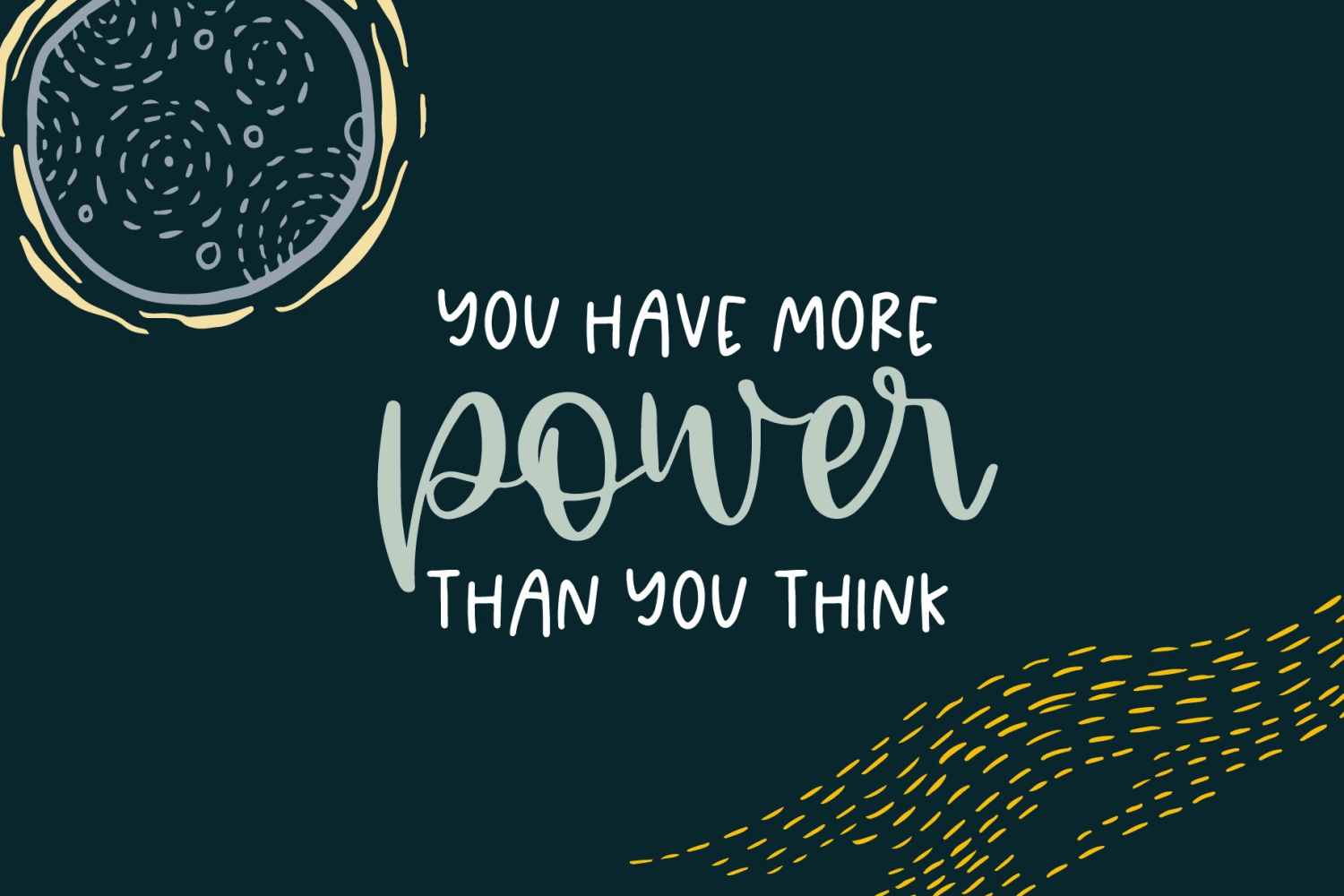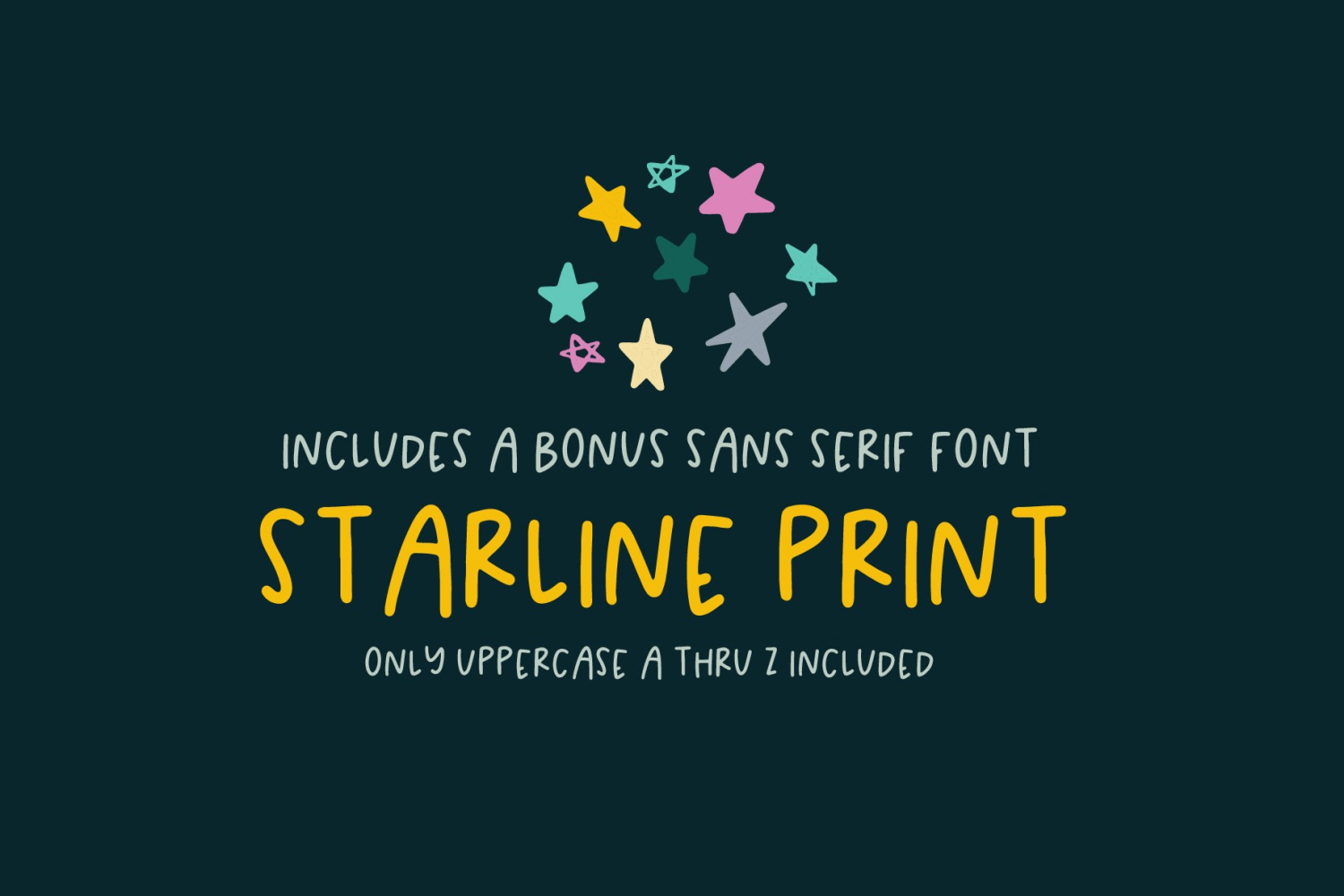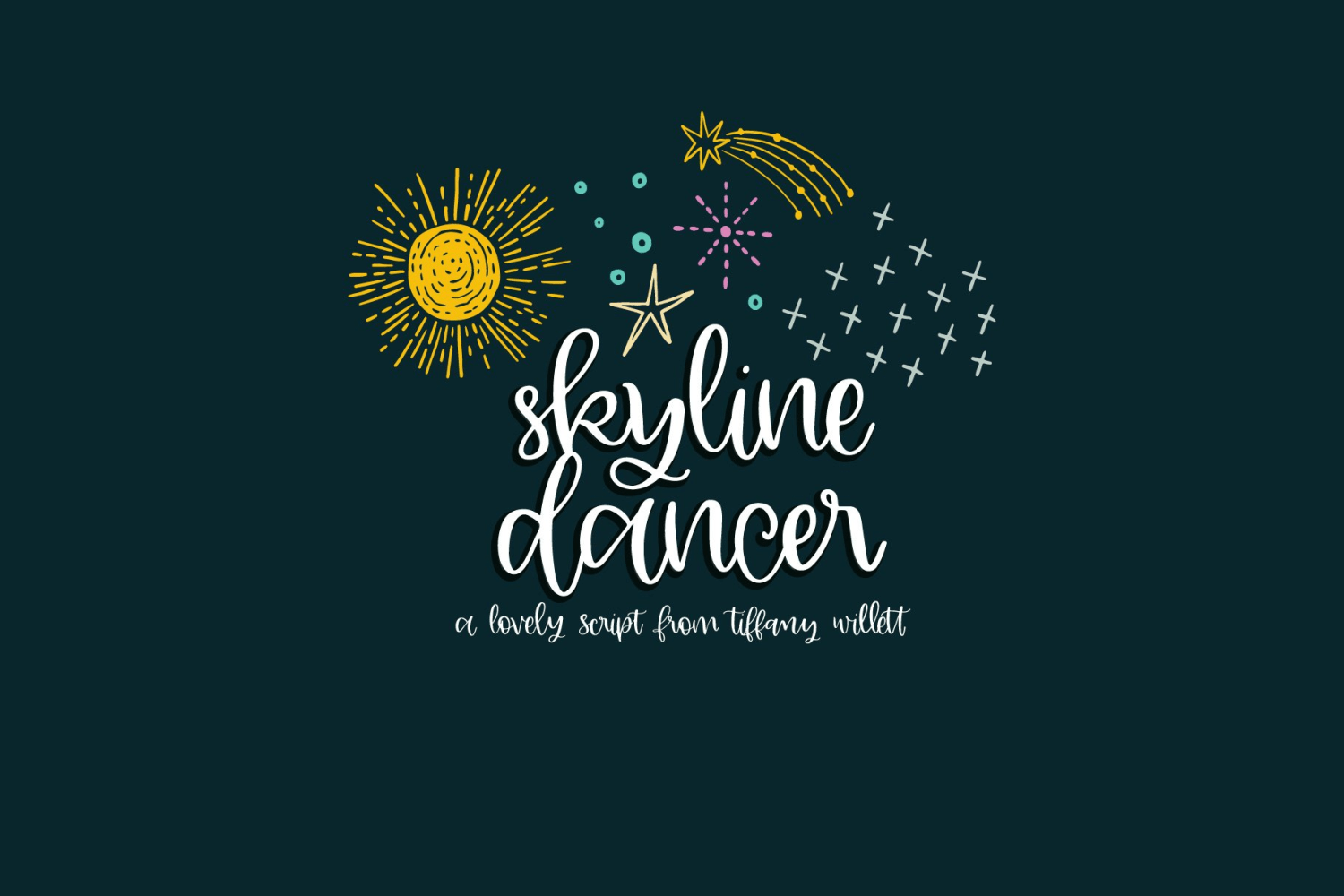
Skyline Dancer
About Skyline Dancer
What a fun font this was to make! Lovely Skyline Dancer script with BONUS Starline Print that compliments it perfectly!